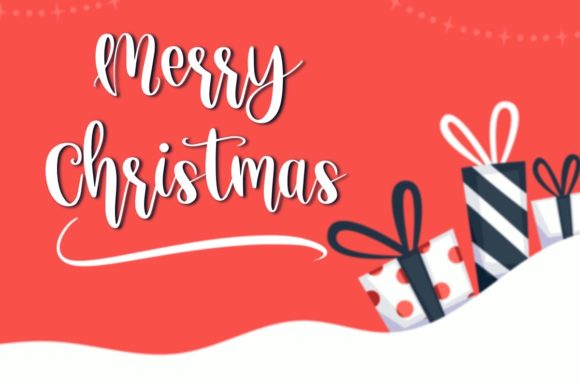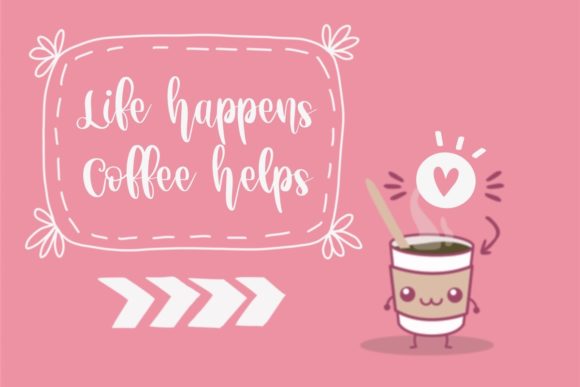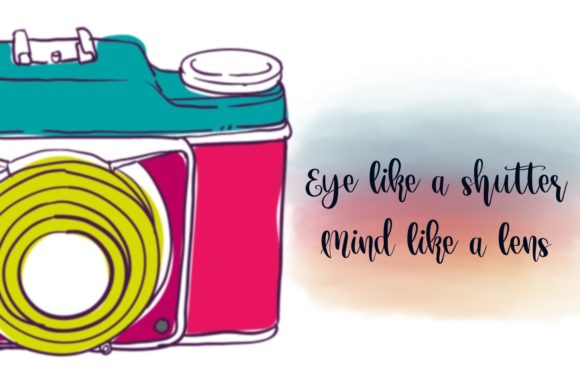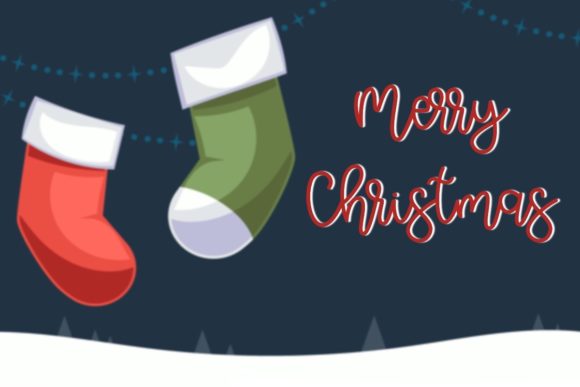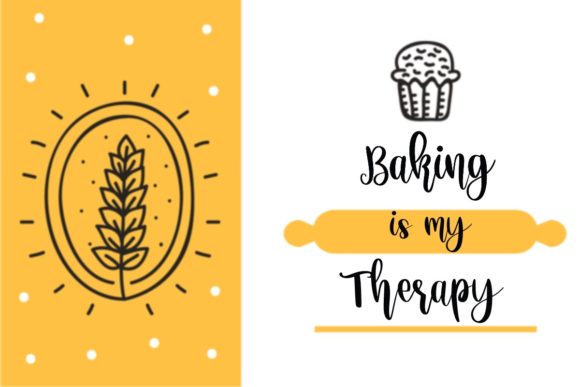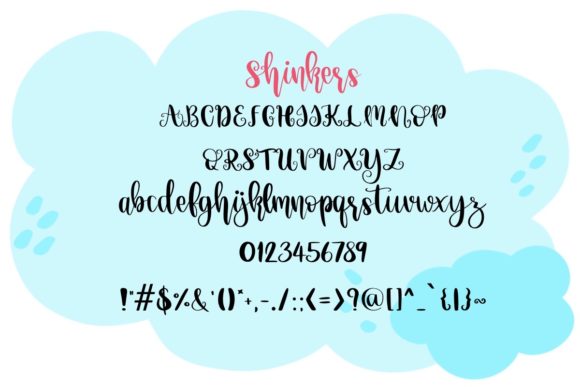
Introduction to Shinkers Font
Remember that moment when you’re brainstorming ideas for your next creative project, and you stumble upon the perfect font that elevates your entire design? It’s like a ray of sunshine bursting through the clouds, and suddenly, everything falls into place. For designers, finding the right font can be a game-changer. And, if you’re lucky, you might just stumble upon a treasure trove of creative goodness, like the enchanting Shinkers Font.
As a high-quality design resource, Shinkers Font is a beautiful, handwritten font that exudes a sense of elegance and friendliness. Its classy style makes it perfect for a wide range of applications, from gorgeous wedding invitations to beautiful stationery art, eye-catching social media posts, logos, and branding. And, the best part? It’s available for free download, making it an accessible and valuable resource for designers of all levels.
Key Features of Shinkers Font
- High-quality design resource with a unique, creative style suitable for various projects
- Includes a range of characters and glyphs, including Latin and Cyrillic scripts
Honest Review: Shinkers Font
I recently had the chance to try out the Shinkers Font, and I’m excited to share my thoughts on this design resource. As a designer, I’m always on the lookout for high-quality fonts that can elevate my creative projects.
- ✨ Unique and playful style that adds a touch of whimsy to any design
- ⚠️ Limited character set, which may not be suitable for extensive text-based designs
- ⚠️ Not ideal for designs that require a lot of subtlety or sophistication
Overall, I’m impressed with the Shinkers Font. While it may not be the perfect fit for every design project, it’s a great option for those looking to add a playful touch to their creative work. The transparent background and high-quality vector format make it a breeze to use, and the free download is a major plus. If you’re looking for a fun and quirky font to spice up your design, the Shinkers Font is definitely worth checking out.
How to Use Shinkers Font
For the most out of Shinkers Font, use it for creative projects that require a unique and eye-catching design. Common use cases include branding, logos, and marketing materials. With its high-quality design and transparent background, Shinkers Font is a great addition to any design project.